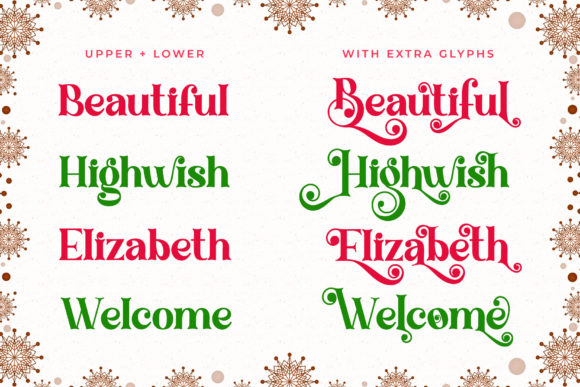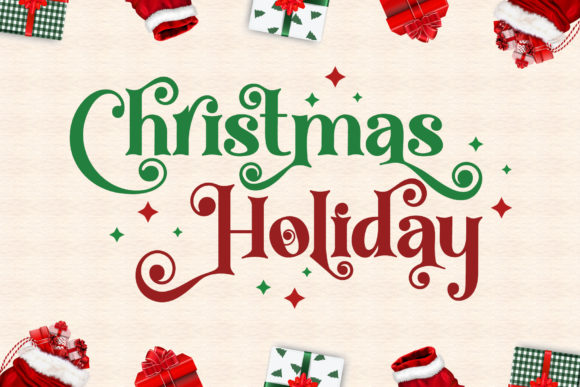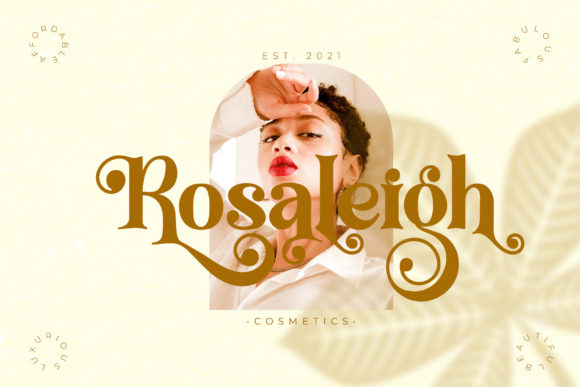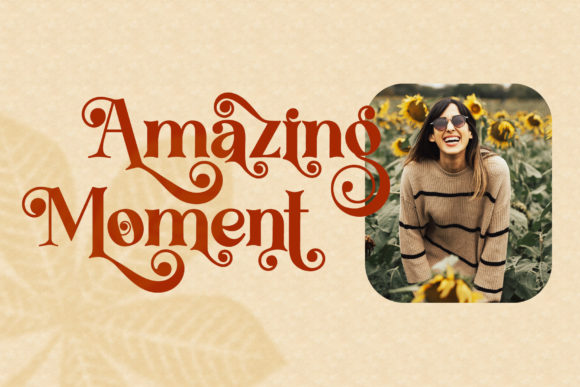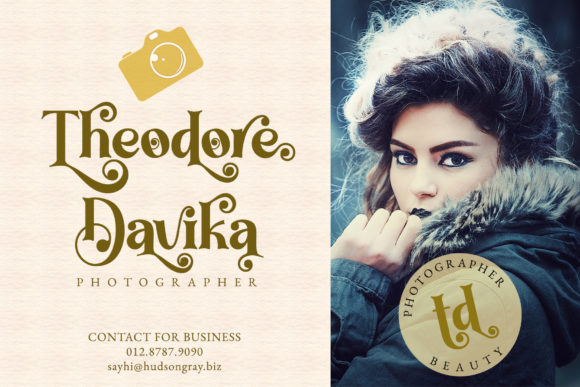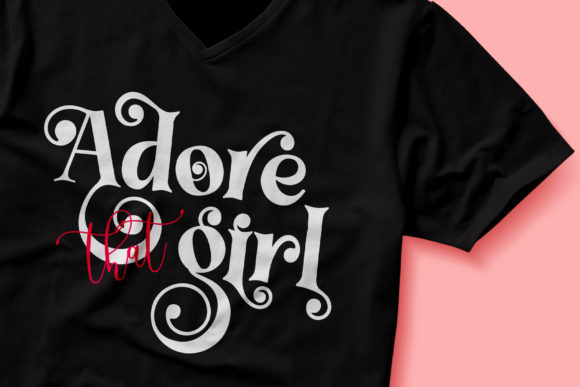
Introducing Christmas Knowing Font: Elevate Your Designs with Elegance and Swirliness
Are you looking for a font that exudes elegance and sophistication for your design projects? Look no further than Christmas Knowing Font, a beautiful serif font that is perfect for adding a touch of luxury to your creations. In this article, we’ll dive into the features and benefits of Christmas Knowing Font, and explore how it can elevate your designs, from wedding invitations to Christmas decorations, branding, and more.
What is Christmas Knowing Font?
Christmas Knowing Font is an elegant serif font that boasts a range of extra swirly characters, designed to give your designs an extra dose of elegance and swirliness. With its classic and sophisticated look, this font is ideal for designers and crafters who want to create stunning visual content that stands out from the crowd.
Key Features of Christmas Knowing Font
- Elegant Serif Font: Christmas Knowing Font features a classic serif design that exudes sophistication and elegance.
- Extra Swirly Characters: This font includes a range of extra swirly characters that add a touch of whimsy and luxury to your designs.
- Versatile: This font is perfect for a wide range of design projects, including wedding invitations, Christmas decorations, branding, logos, lettering, crafting, stickers, sublimation, SVG design, Cricut design, Procreate design, and more.
Christmas Knowing Font is a versatile font that can be used for a variety of design projects. Whether you’re a designer, crafter, or DIY enthusiast, this font is perfect for:
- Wedding Invitations: Add a touch of elegance to your wedding invitations with Christmas Knowing Font.
- Christmas Decorations: Create stunning Christmas decorations, such as holiday cards, gift tags, and more.
- Branding and Logo Design: Use Christmas Knowing Font to create a sophisticated brand identity that stands out from the competition.
- Lettering and Crafting: Add a personal touch to your lettering and crafting projects with this beautiful font.
- Stickers and Sublimation: Create eye-catching stickers and sublimation designs that showcase your creativity.
Benefits of Using Christmas Knowing Font
By using Christmas Knowing Font, you can:
- Elevate Your Designs: Add a touch of elegance and sophistication to your designs.
- Increase Creativity: The extra swirly characters and versatile design of Christmas Knowing Font will inspire your creativity and help you create unique designs.